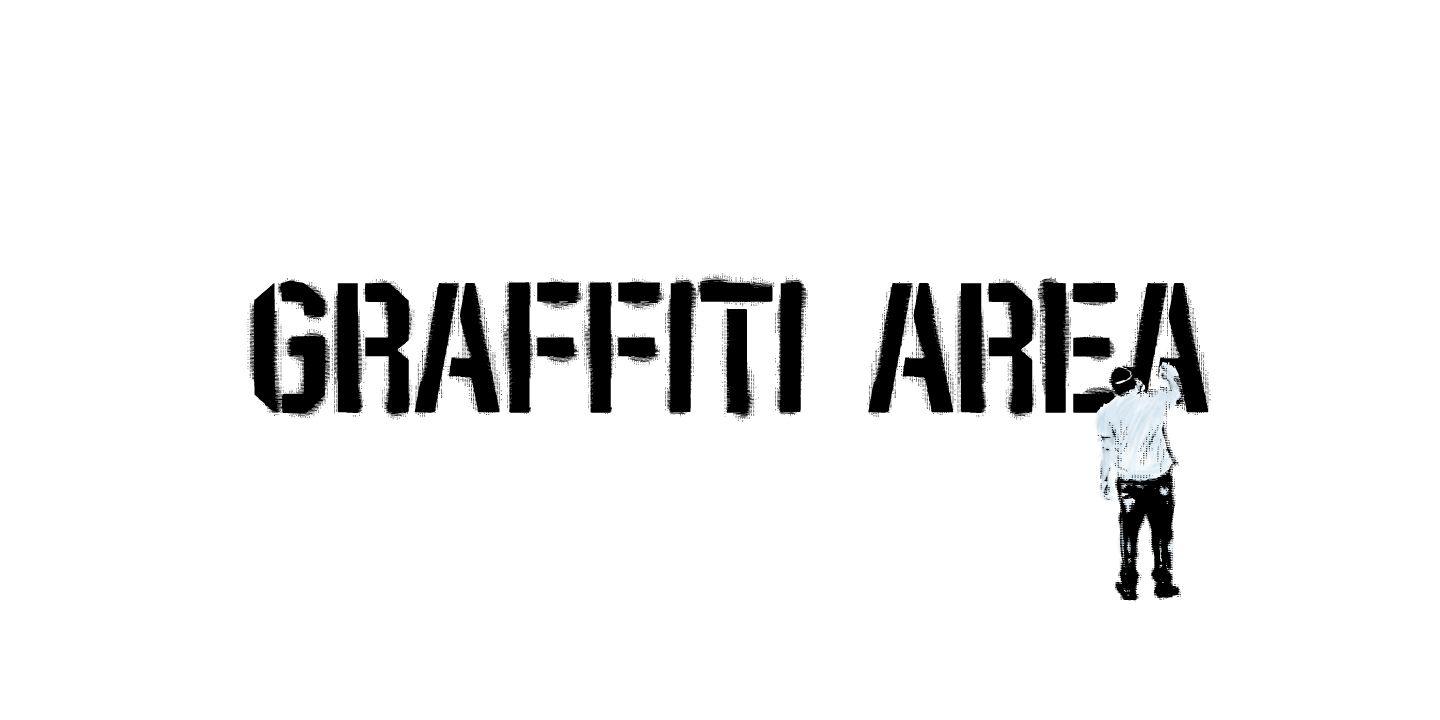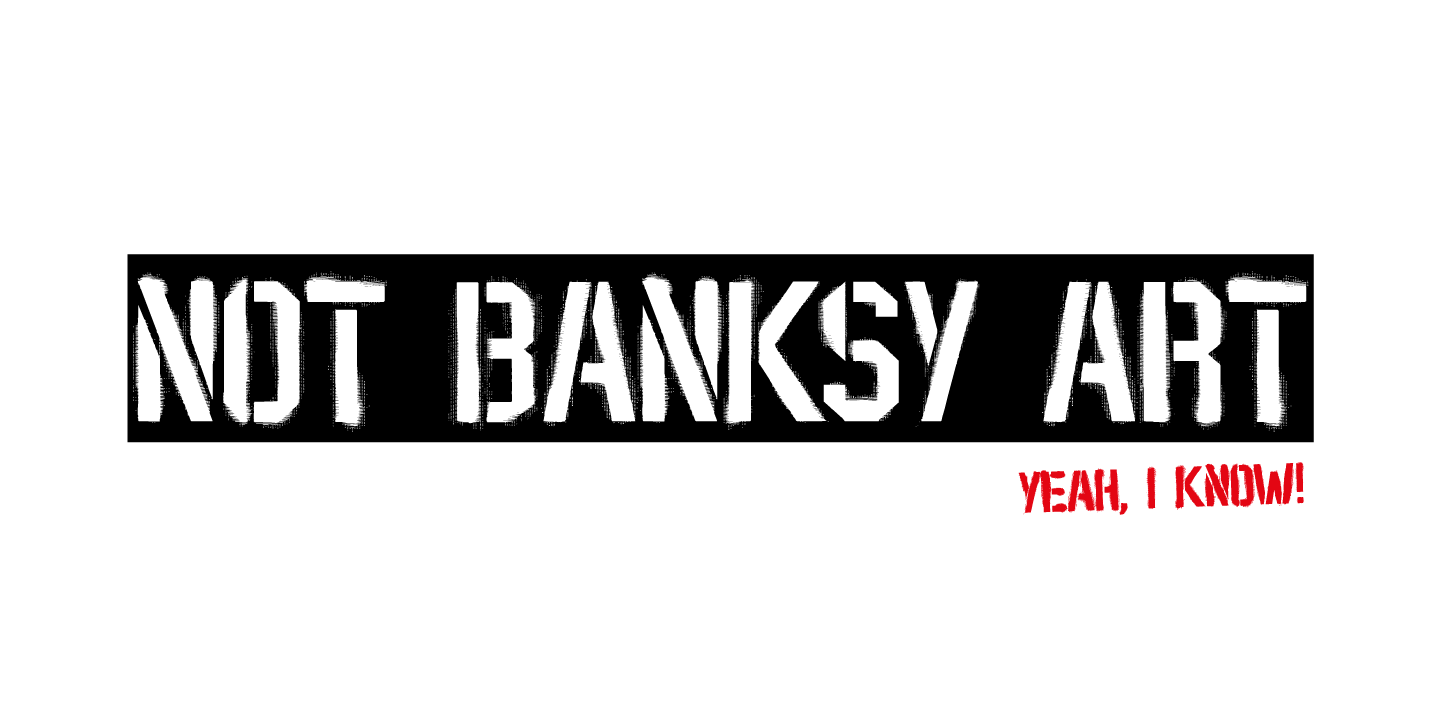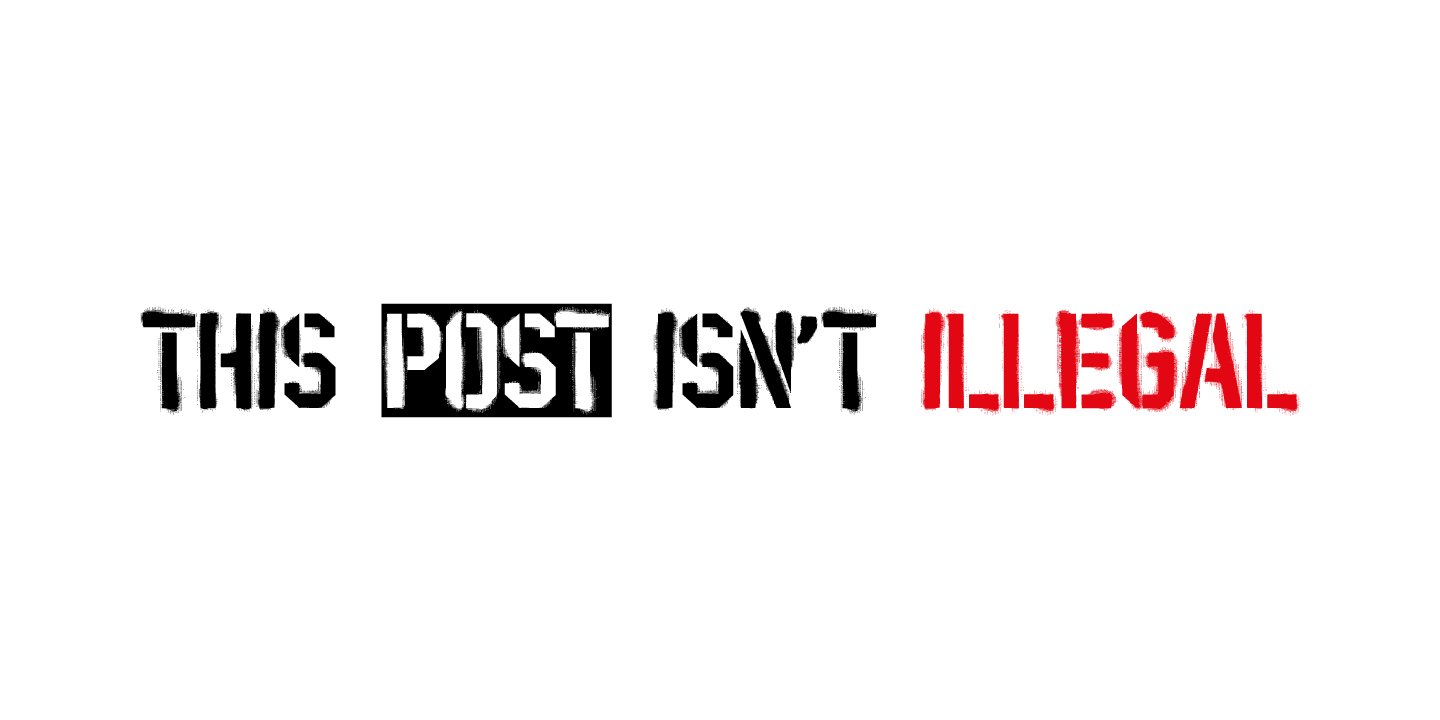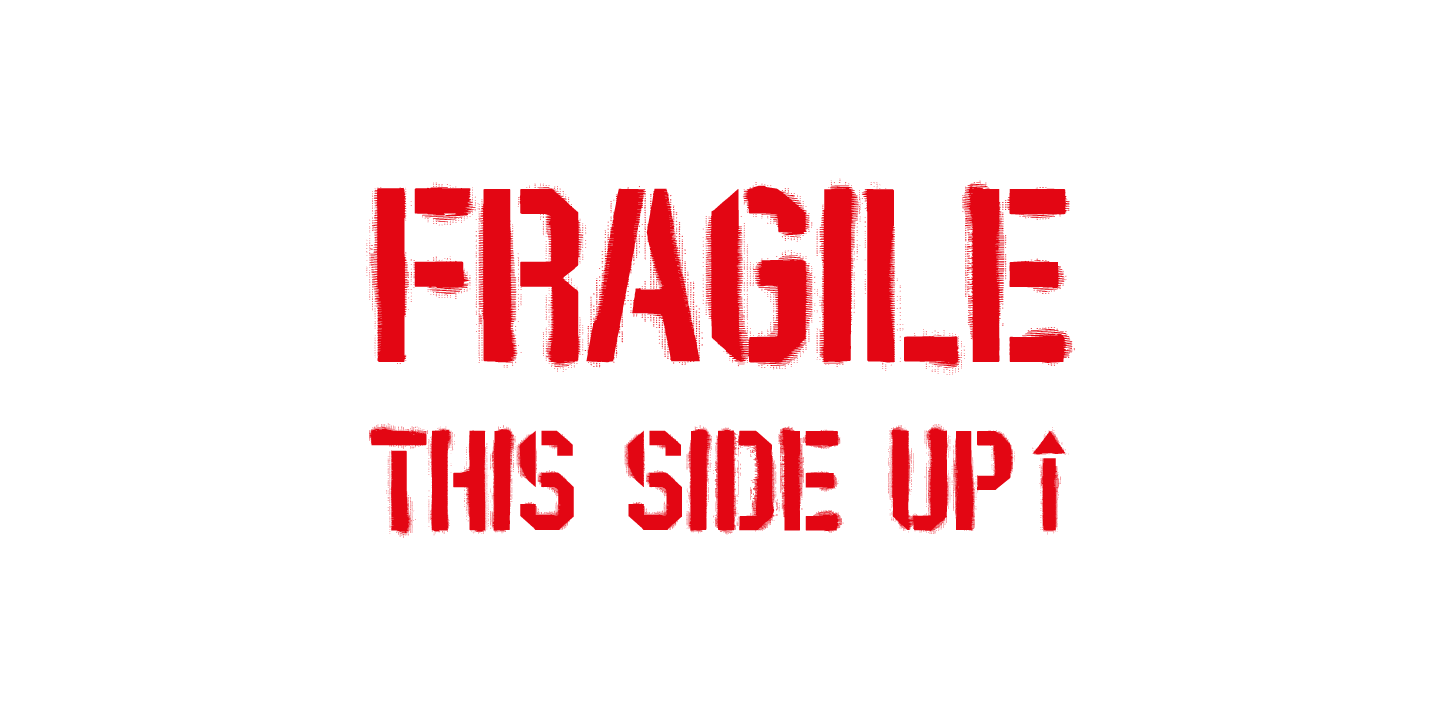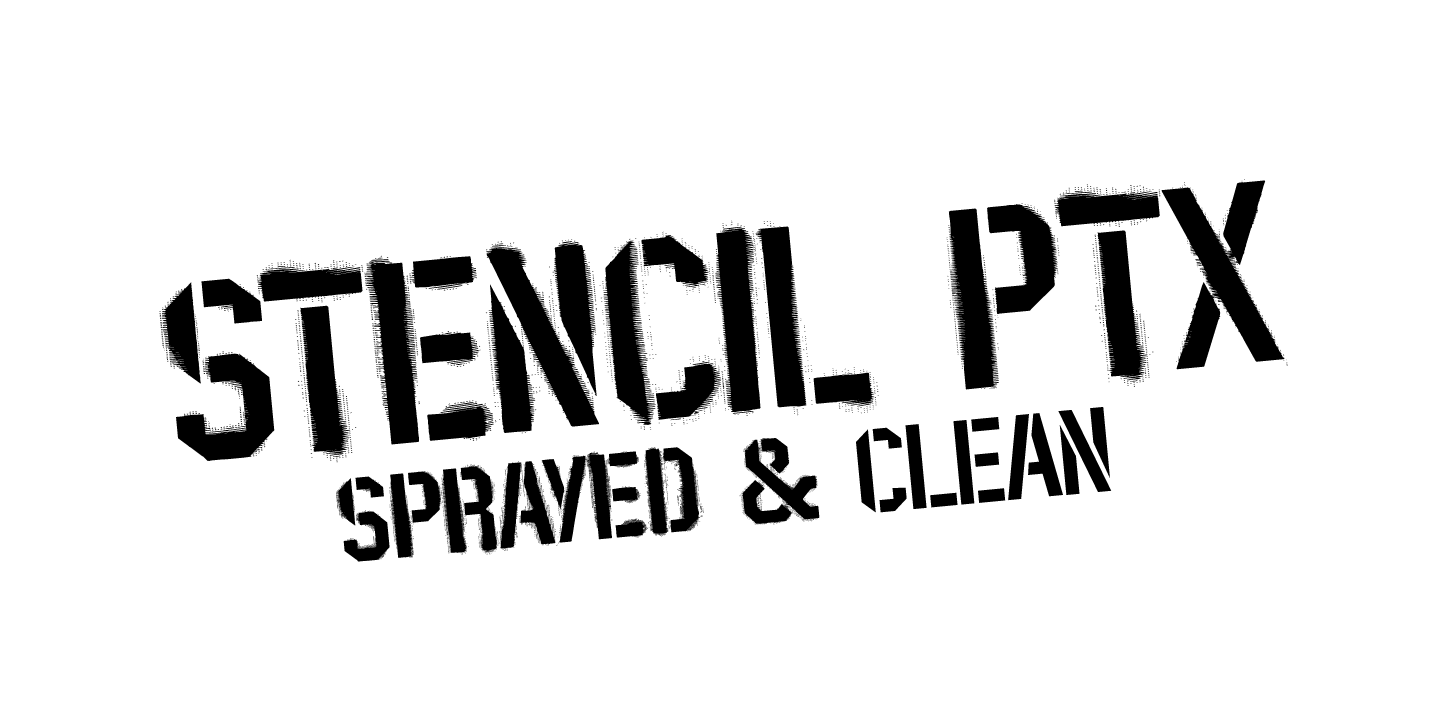
Stencil PTx
About Stencil PTx
I created two styles, sprayed, to be used in display giving the idea of graffiti on the wall and the clean, to possibly be used in print. This is the idea I have of an old school stenciled typeface/look.